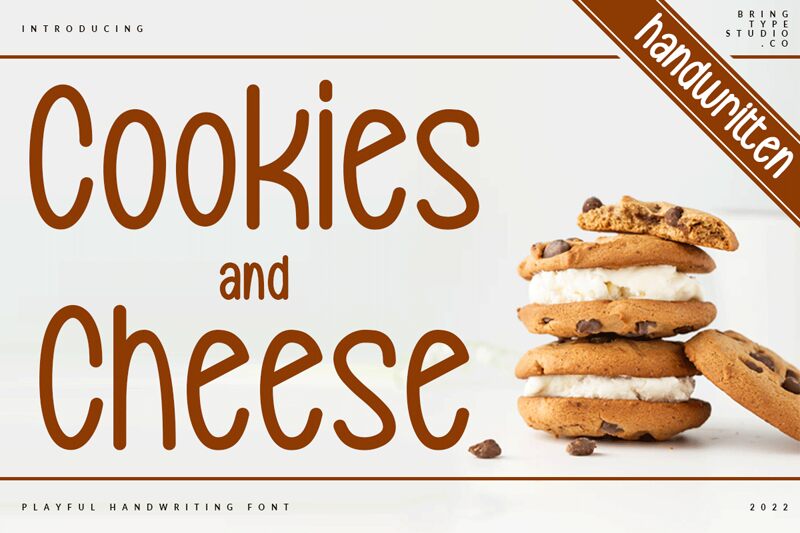
Cookies and Cheese Thin
Cookies and Cheese Thin is a delightful handwritten font from bringtypestudio.co. With its extra-light weight and condensed width, this font exudes elegance and sophistication. Perfect for wedding invitations, luxury branding, and editorial designs, Cookies and Cheese Thin adds a touch of refined charm to any project. Its delicate strokes and graceful curves will captivate readers while maintaining readability. Whether you're designing a high-end magazine layout or creating an exquisite logo, this font is sure to elevate your work with its unique blend of playfulness and sophistication.